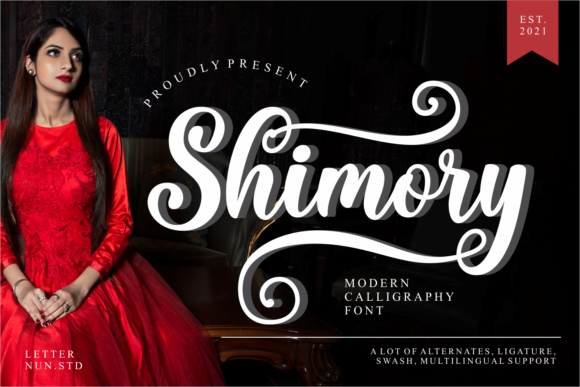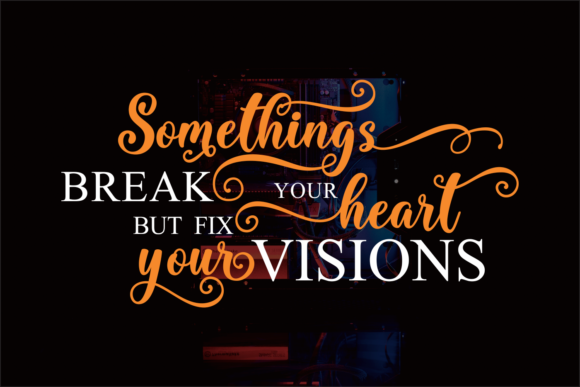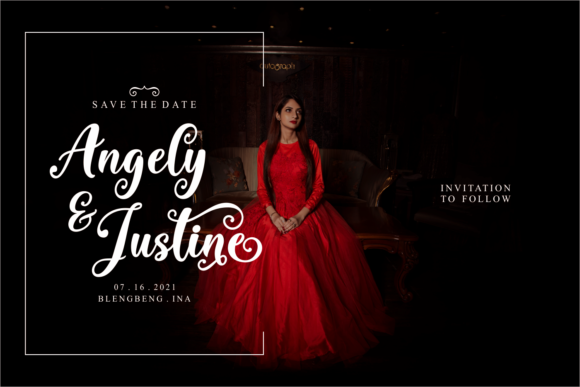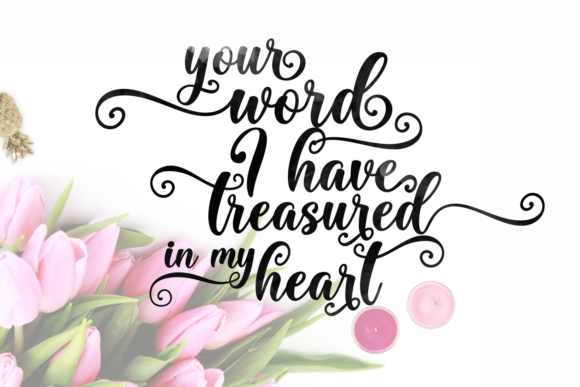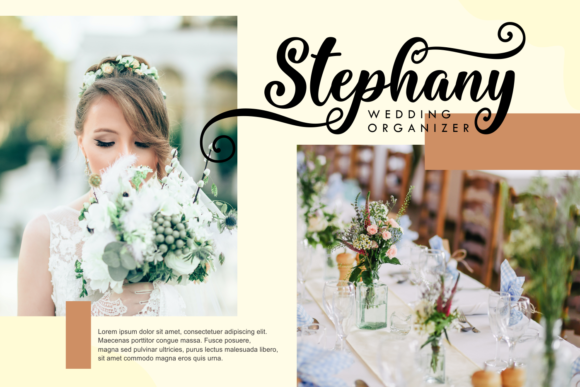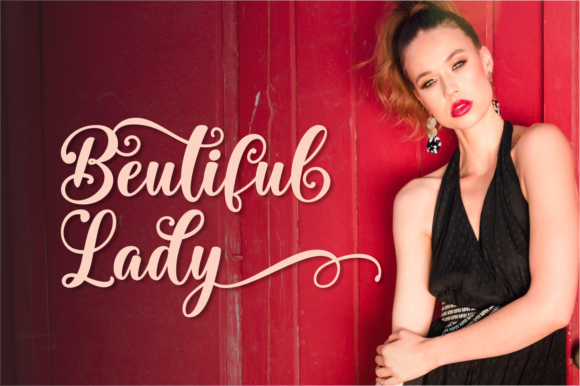
Introduction to Shimory Font
Enter Shimory Font, a dazzling script font that’s sure to elevate your next design project. With its neatly crafted and highly detailed design, Shimory Font is a valuable resource for any designer looking to add a touch of elegance and sophistication to their work.
Whether you’re working on a personal project or a commercial design, Shimory Font is a free download that’s sure to impress. With its transparent background and PUA encoding, accessing all glyphs and swashes is a breeze, making it the perfect choice for any creative project.
- Unique characteristics include a modern, minimalist aesthetic and a versatile font style suitable for various creative projects.
Honest Review: Shimory Font
I recently stumbled upon the Shimory Font, and I must say it’s a solid addition to any designer’s toolkit. The Shimory Font offers a high quality, versatile font perfect for a variety of creative projects.
- ✨ Elegant and modern design that works well for branding, packaging, and editorial content.
- ✨ Includes a transparent background option, making it easy to overlay on images or other design elements.
- ✨ Great for both digital and print projects, thanks to its crisp and clear appearance.
- ⚠️ Limited language support, which may be a concern for projects that require multilingual support.
- ⚠️ The font’s thin lines may not be ideal for projects with small font sizes or low resolution images.
Overall, the Shimory Font is a valuable design resource, especially for those looking for a modern and elegant font for their creative projects. While it may have some limitations, it’s still a great choice for many designers. And the best part? It’s available for free download, making it an excellent option for designers on a budget.
The Shimory Font is a high-quality design resource that offers a unique and creative touch to your projects. With its transparent background, it’s perfect for adding a professional touch to your designs.
Some common use cases for Shimory Font include creating logos, business cards, and other marketing materials. Tips for getting the most out of the font include experimenting with different font sizes and styles, and using the font in combination with other design elements.